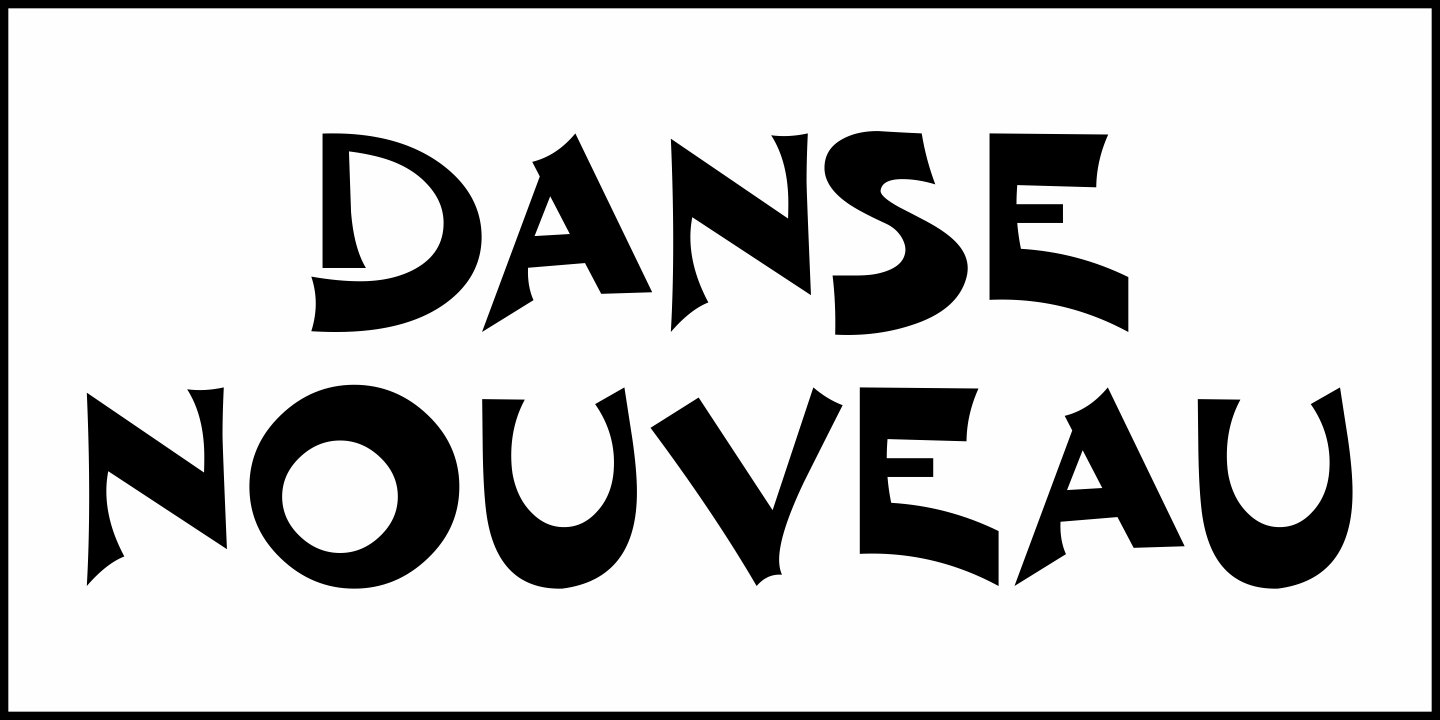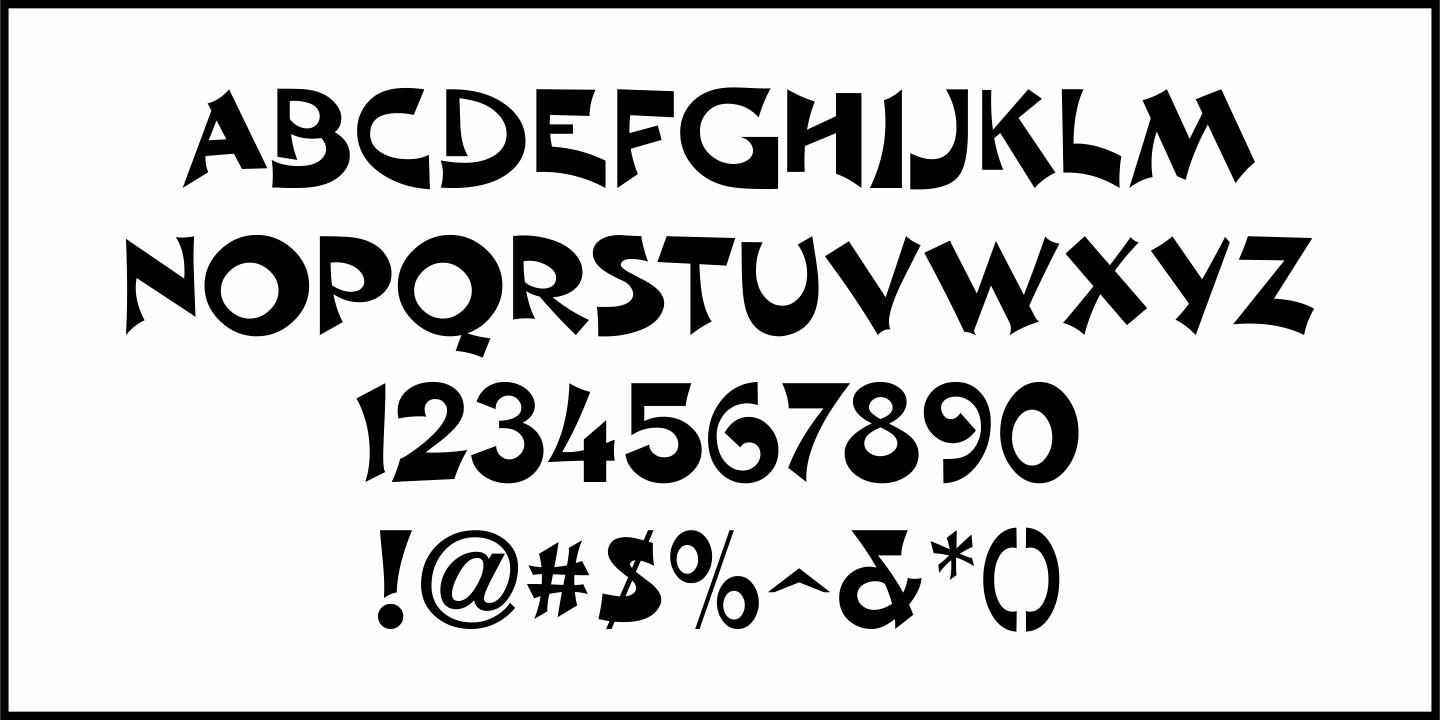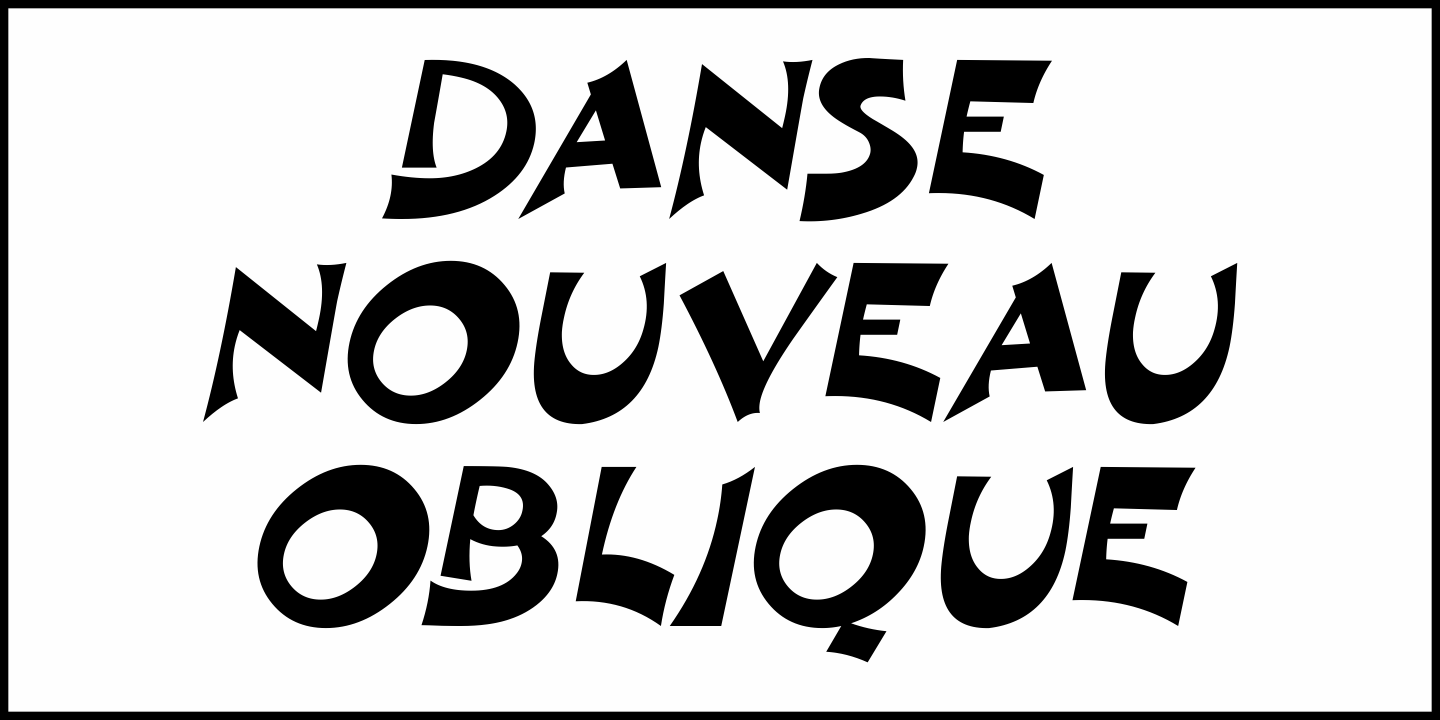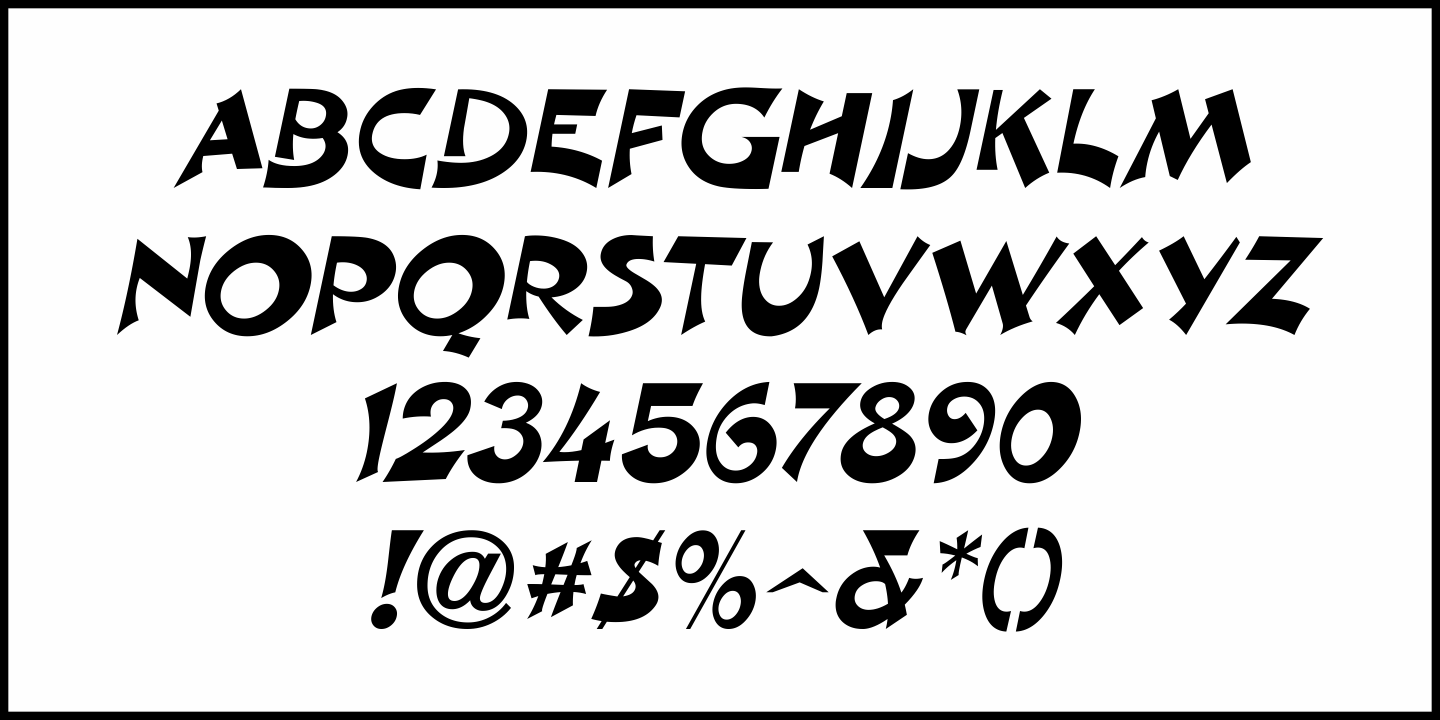
Danse Nouveau
From the 1909 edition of the German publication "Shriften Atlas" ("Atlas of Writings") by Ludwig Petzendorfer comes a wonderfully casual and playful Art Nouveau type design.
This now available as Danse Nouveau JNL in both regular and oblique versions.